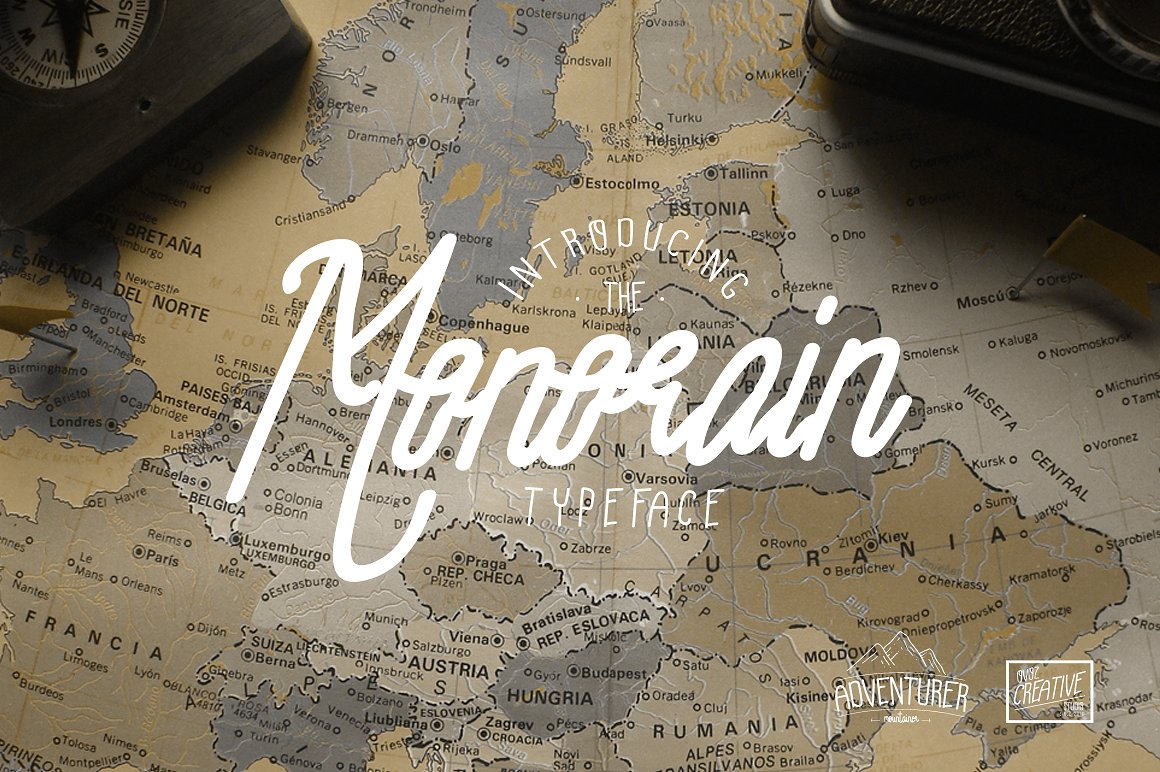
Monorain Vintage Handrawn
Monorain Vintage Handrawn Font
Introducing Monorain Typeface a rough handrawn font with monoline style, created on september 2016, reflect the Heritage and vintage on one precious font.
and suitable for any design needs, branding, modern advertising design, Art Quote, Book/Cover Title, special events, custom mug, pillow, t-shirts, any brush lettering needs and more.